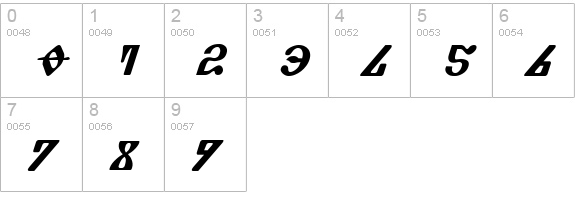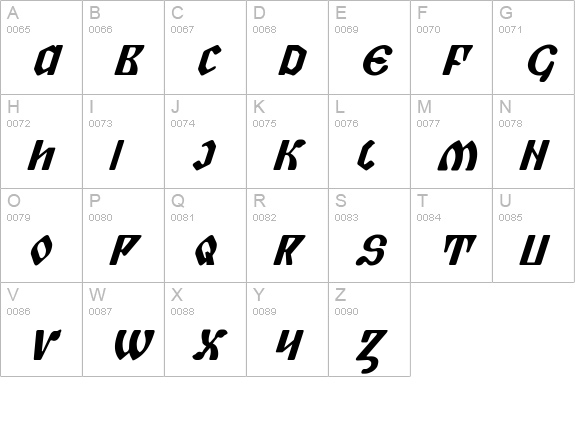
Piper Pie Bold Italic is a strong, high-contrast, italic variant in the Piper typeface family \xE2\x80\x94 well suited to headlines, attention-grabbing titles, and strong calls-to-action.
Introducing Piper Pie Bold Italic - a dynamic and eye-catching font that exudes creativity and personality. This unique typeface features bold and italicized characters that are perfect for making a statement in your designs. With its playful curves and distinctive style, Piper Pie Bold Italic is sure to capture the attention of your audience. What's even better is that Piper Pie Bold Italic is available for free download at FontsMarket.com. Now you can add a touch of flair to your projects without breaking the bank. Whether you're designing a poster, logo, or website, this font will bring a fresh and modern look to your work. Don't miss out on the opportunity to enhance your designs with Piper Pie Bold Italic. Download it for free today and let your creativity shine!